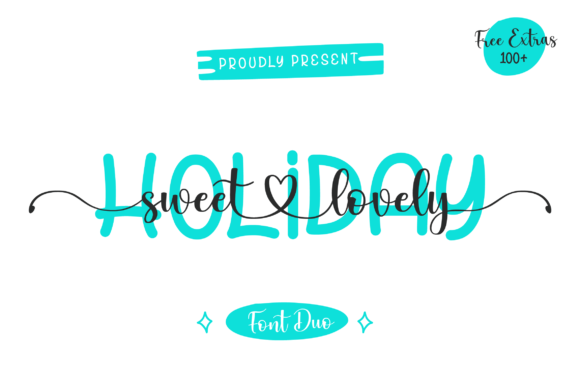
Introducing Holiday Sweet Lovely Font, a captivating duo font that dances along the baseline, leaving a trail of elegance and charm in its wake. This spectacular script font is the epitome of versatility, adapting effortlessly to a vast array of designs, propelling them to new heights of sophistication.
Immerse yourself in the world of Holiday Sweet Lovely, where your designs will flourish with a handwritten touch. Envision your thank you cards, quotes, wedding invitations, greeting cards, business cards, logos, and any other creative endeavor adorned with this exquisite font. Its PUA encoding ensures seamless access to an array of glyphs and swashes, empowering you to unleash your creativity without limits.
With Holiday Sweet Lovely, your designs will radiate warmth and charm, captivating the hearts of your audience. Its delicate strokes evoke a sense of intimacy, making it the perfect choice for personal correspondence and heartfelt messages. Let your words flow effortlessly with the graceful curves of this font, leaving a lasting impression that will be cherished forever.
Elevate your designs to new heights with Holiday Sweet Lovely, a font that embodies elegance and versatility. Unleash your creativity and embark on a design journey where beauty and functionality harmoniously coexist. Your designs will shine with a brilliance that will leave your audience spellbound and yearning for more.